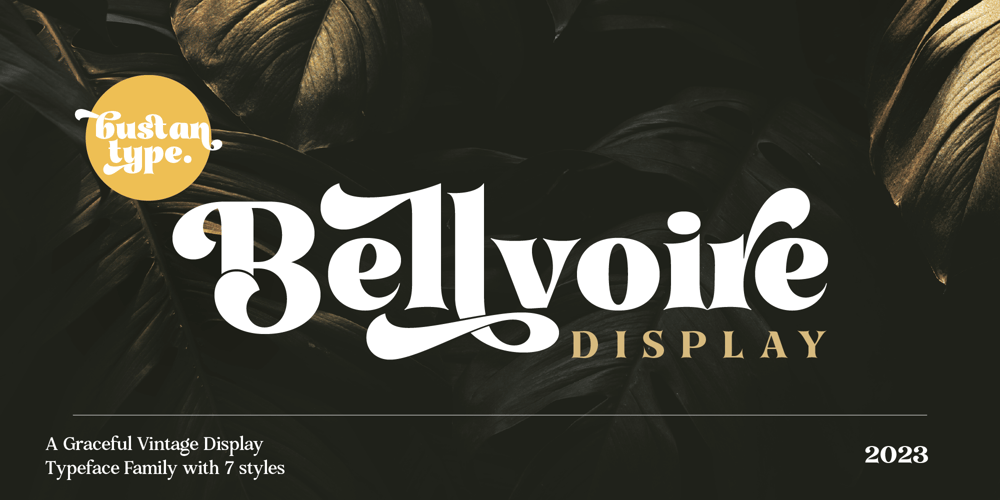
Bellvoire Display Font Family was designed by Bustanul Arifin and published by BustanType. Bellvoire Display contains 7 styles and family package options. BELLVOIRE DISPLAY is A Graceful Vintage Display Typeface Family, comes with 7 styles arranged from Light to Black. equipped with various opentype features such as stylistic alternates, stylistic style(ss01 to ss10), swash characters(Uppercase), ligatures, additional symbols, and multilingual support for major latin based languages.Bellvoire Display is perfect for branding, logo design, magazine, poster, invitation and many more.